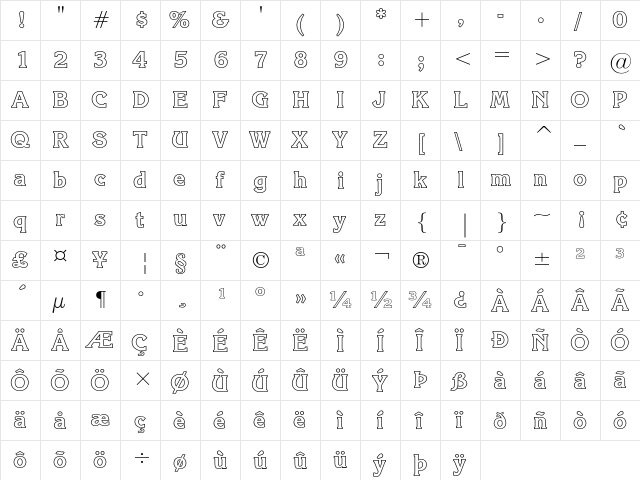
ITC Korinna Bold Outline
Design Context for ITC Korinna Typeface
ITC Korinna is built around its visual character rather than neutral utility — its distinctive forms are designed to make an impression at display sizes. The heavy weight commands attention and anchors typographic hierarchies.
Font Pairing: Pair with a clean neutral sans-serif for body copy to let ITC Korinna's character lead without overwhelming the composition.
Pro Tip: Use ITC Korinna exclusively at display sizes — it was designed to be seen, not read at length. Let a neutral companion handle body copy.